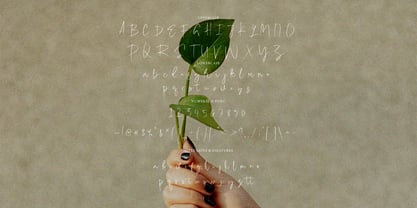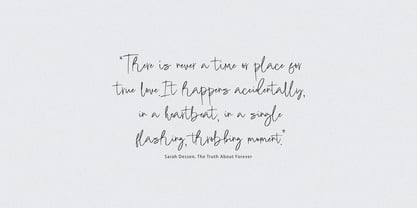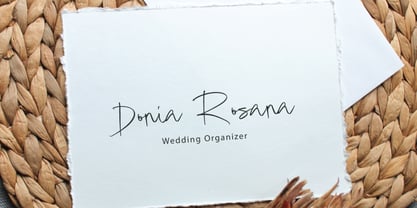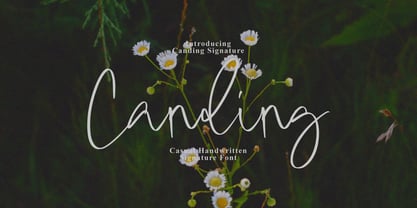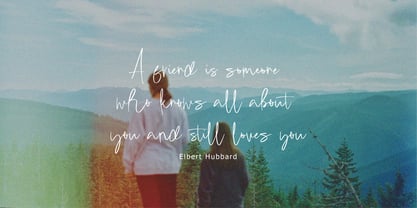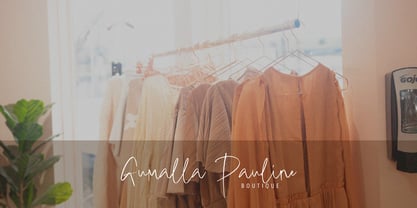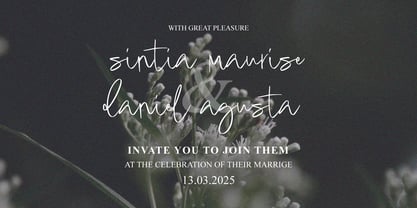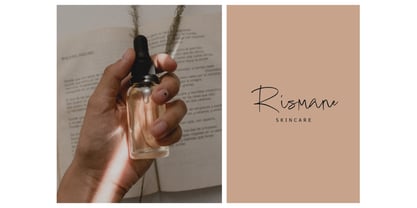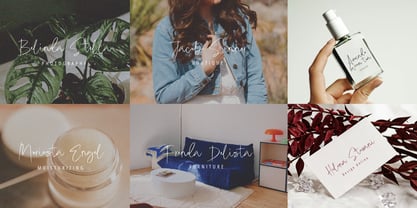
Canding Signature
by Tebaltipis Studio
The Canding Signature Font Family was designed by Dzulka Elfira and published by Tebaltipis Studio. Canding Signature contains 1 styles. More about this family
Canding Signature with a handmade Signature style, decorative characters and a dancing baseline! So beautiful on invitation like greeting cards, branding materials, business cards, quotes, posters, and more!!